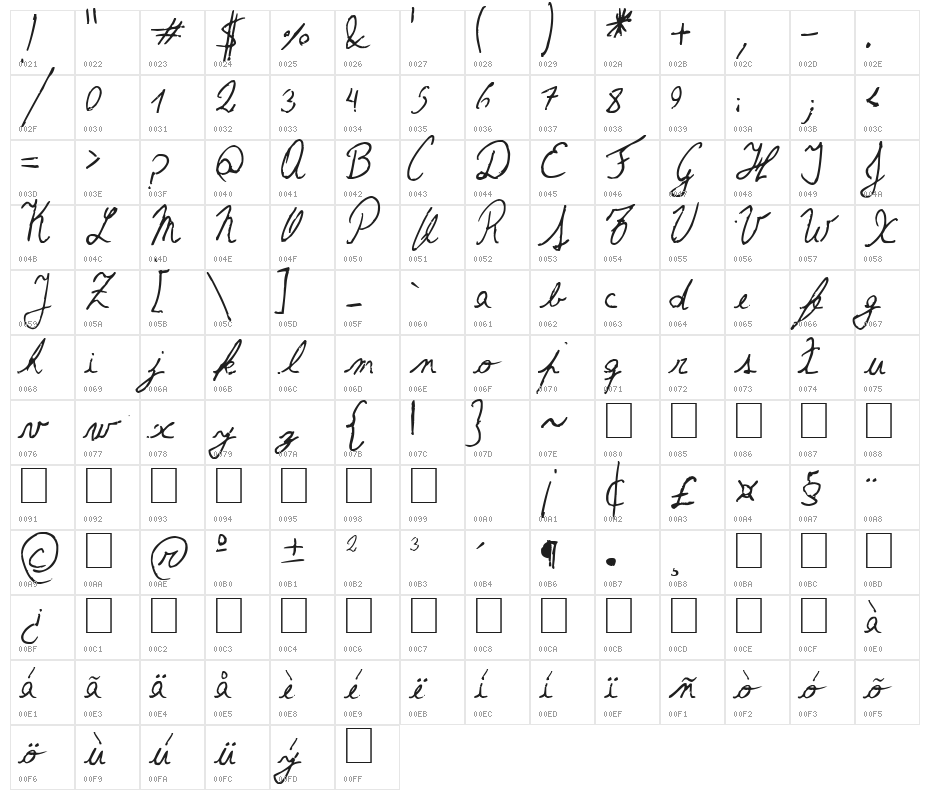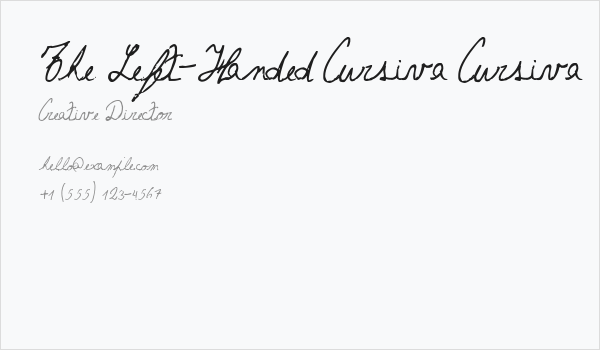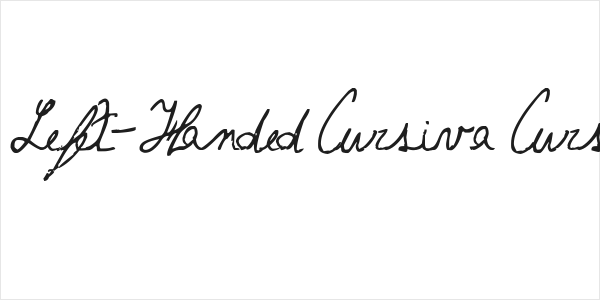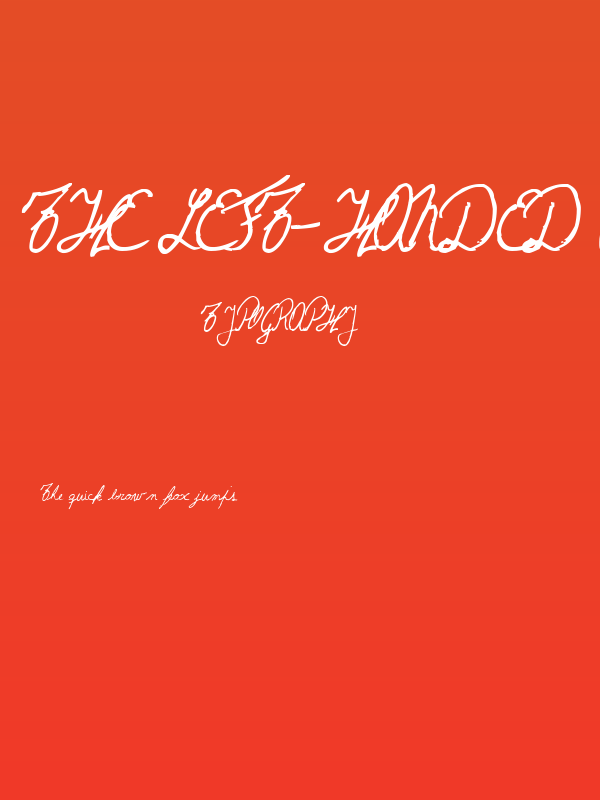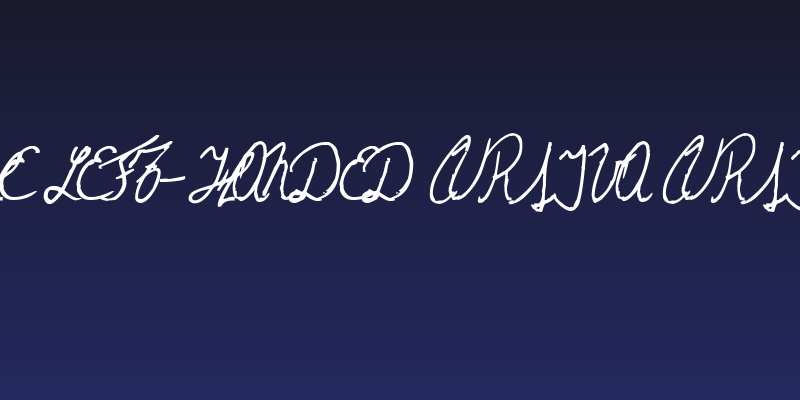
The Left-Handed Cursiva Font
The Left-Handed Cursiva Description
This font exudes a dynamic and expressive handwritten style, characterized by its fluid and cursive strokes. The letters are interconnected, creating a seamless flow that mimics natural handwriting. The uppercase letters are bold and prominent, while the lowercase letters maintain a consistent rhythm. Numbers and special characters are integrated with the same flowing style, adding to the font's cohesive appearance. The overall look is casual yet artistic, making it suitable for projects that require a personal touch.
Overall StyleCasual, Artistic
Use CaseLogos, Invitations, Artistic Projects
Proposed ProjectsIdeal for personal invitations, greeting cards, artistic posters, and branding that seeks a personal, handwritten touch.